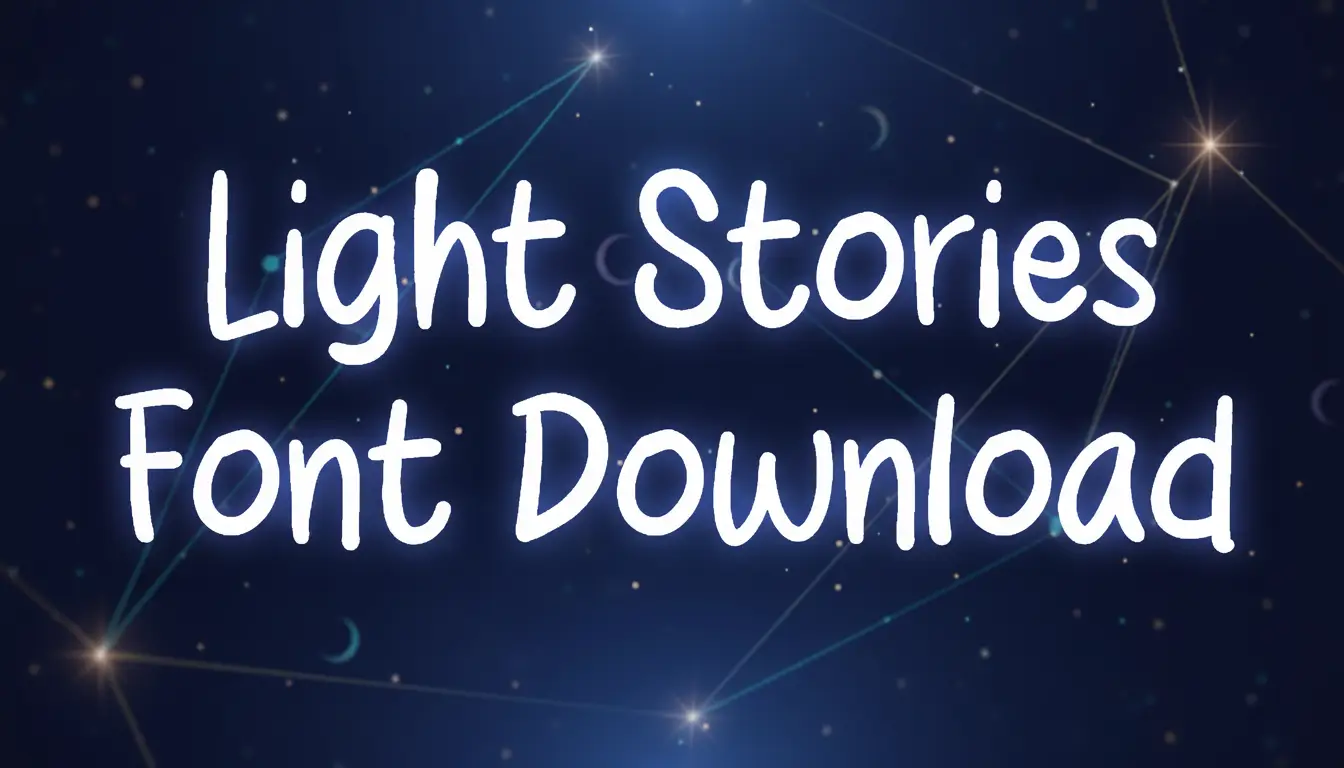
Light Stories Font
Light Stories
Light Stories is a script font created by Khurasan. The letters have the smooth movement of real pen lettering, which is why even a single name looks special in it. It's a free download, and you can try it with your own text in the preview above first.
What You Can Type With Light Stories
Light Stories covers the full alphabet in upper and lowercase, plus all ten numbers, so you can set names, dates and prices without switching fonts. Everyday marks like &, !, ? and @ are there too. There are no accented letters like é or ñ, so it's best kept to English text.
Where Light Stories Works Best
Think of Light Stories for wedding invitations, logos and signature-style headings. Script fonts read best in short bursts, so keep it to names, titles and one-line quotes. Skip all caps: script capitals are drawn to start a word, not to fill one.
Does Light Stories support accented letters?
No. Light Stories has no accented letters such as é, ñ or ü, so it's best for English text.